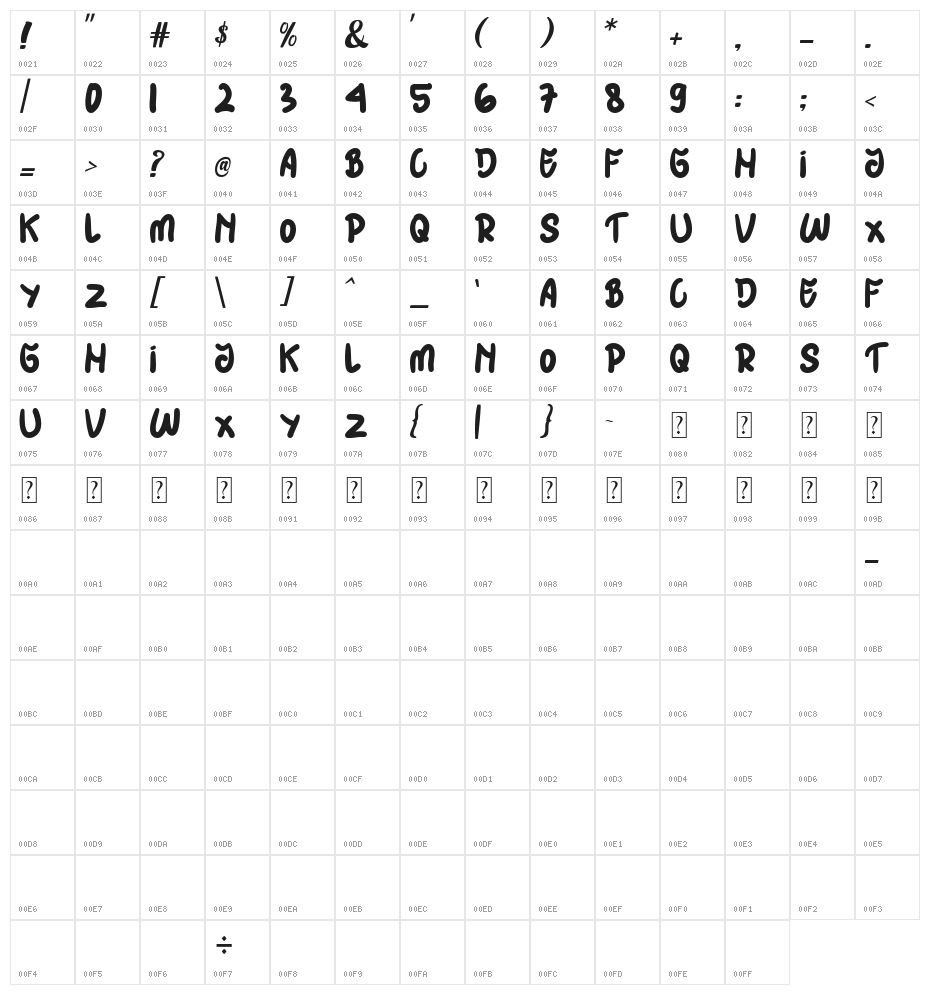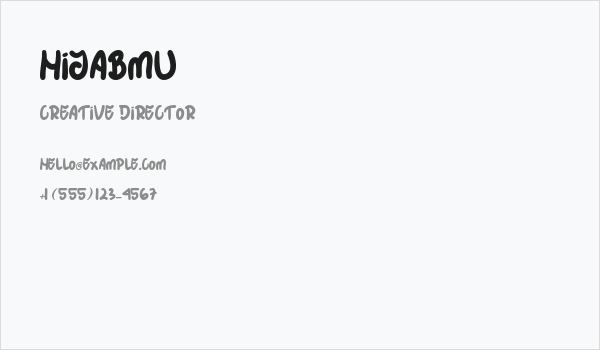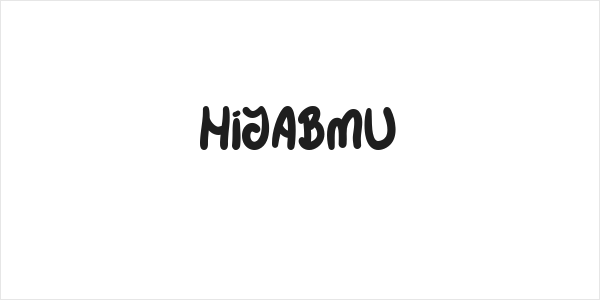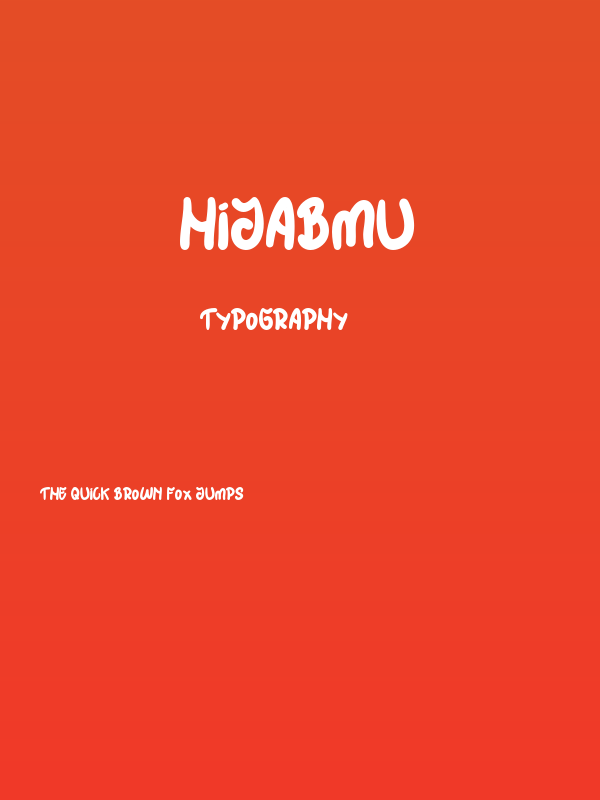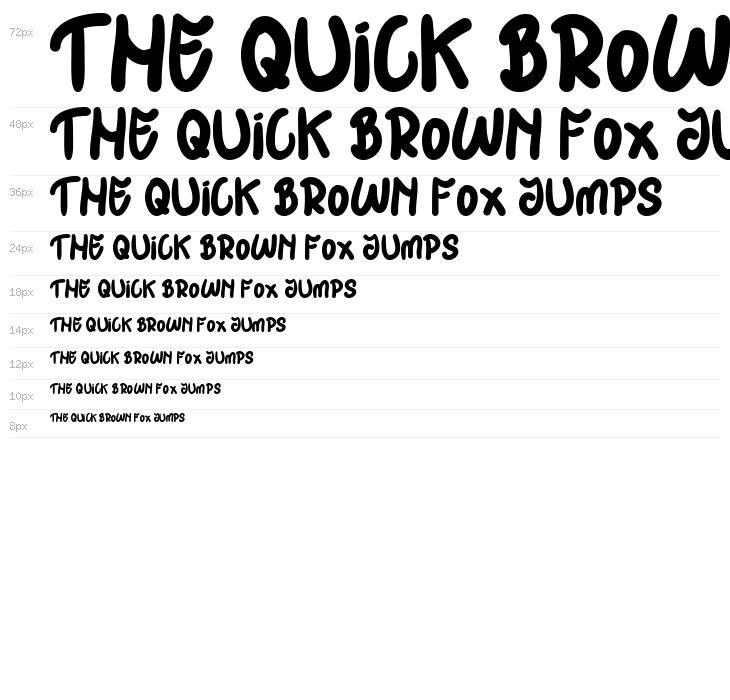
HIJABMU Font
HIJABMU Description
This font exhibits a playful and bold style, characterized by its thick, rounded strokes and a slightly irregular form that gives it a hand-drawn appearance. The letters are uniformly bold, with a consistent weight throughout, creating a strong visual impact. The uppercase and lowercase letters maintain a cohesive look, while the numbers and special characters follow the same design principles, ensuring a harmonious overall appearance. The font's whimsical nature makes it ideal for projects that require a fun and informal tone. Its boldness ensures readability, even at smaller sizes, while the rounded edges add a friendly touch.
| Overall Style | Playful, Hand-drawn |
| Proposed Projects | Ideal for children's books, playful branding, posters, and social media graphics. |